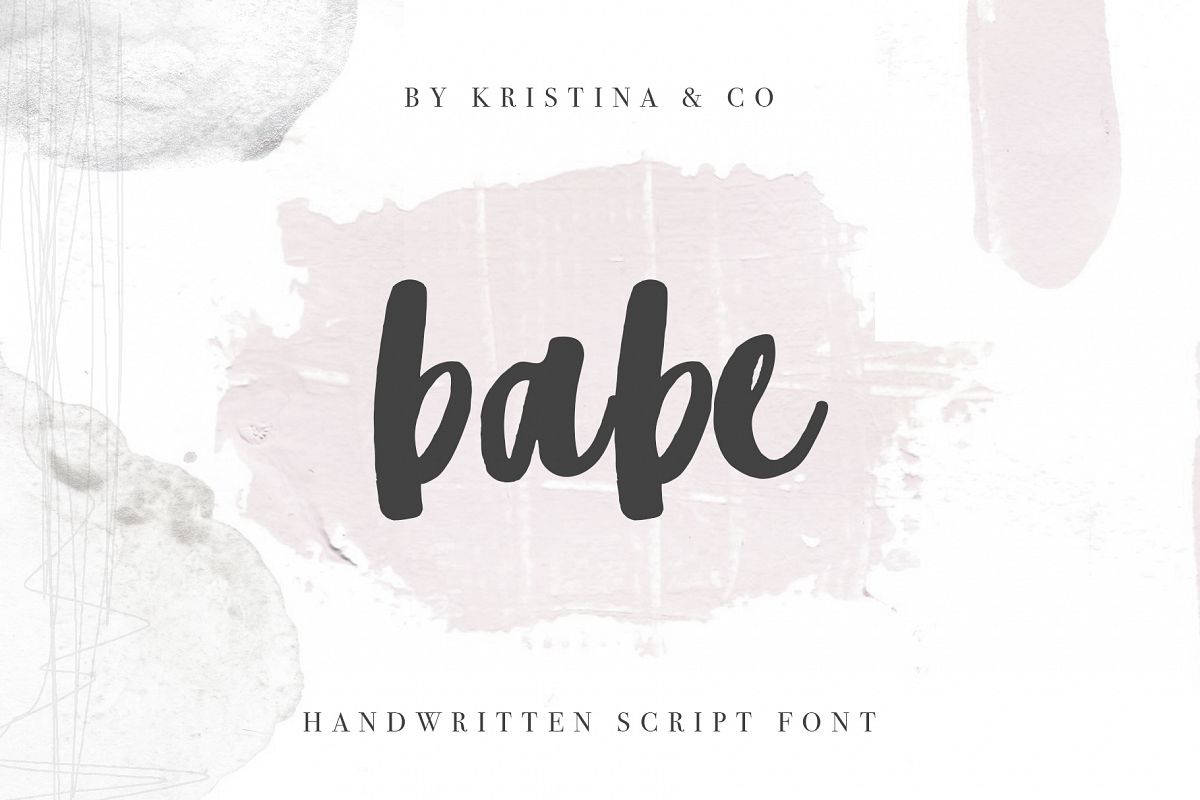
Babe Handwritten script Font
Babe-Regular
Hello! I'm happy to show you my font. He's so free, girlish, careless, hand-written. Share your favorite quotes daily. Decorate your blog, and stay free! :-)WHAT'S INCLUDED :